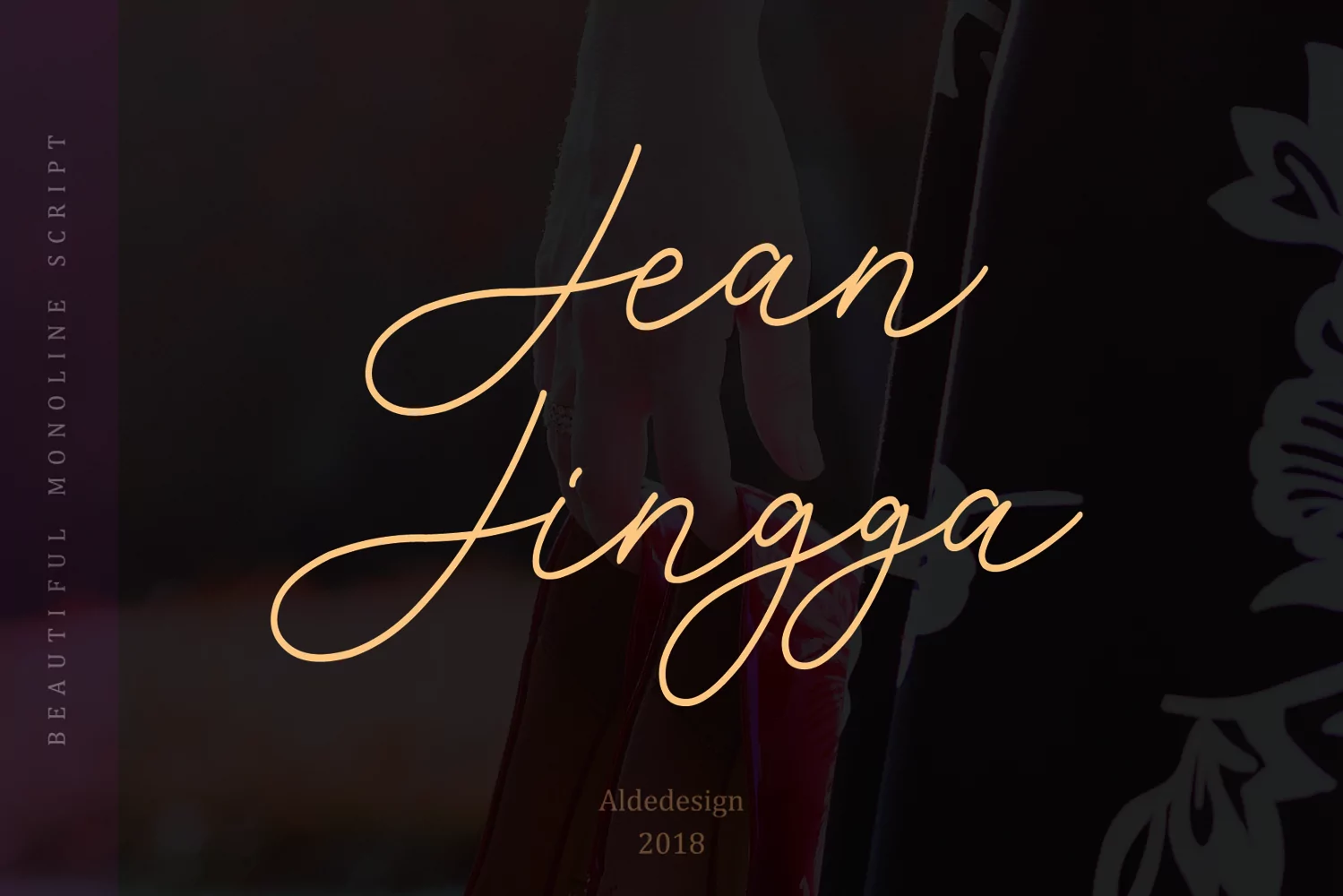
Jean Jingga - Lovely Thin & Dreamy Handwritten Font
Jean Jingga is a dreamy handwritten style font with elegance. The sweeping flow from character to ch…